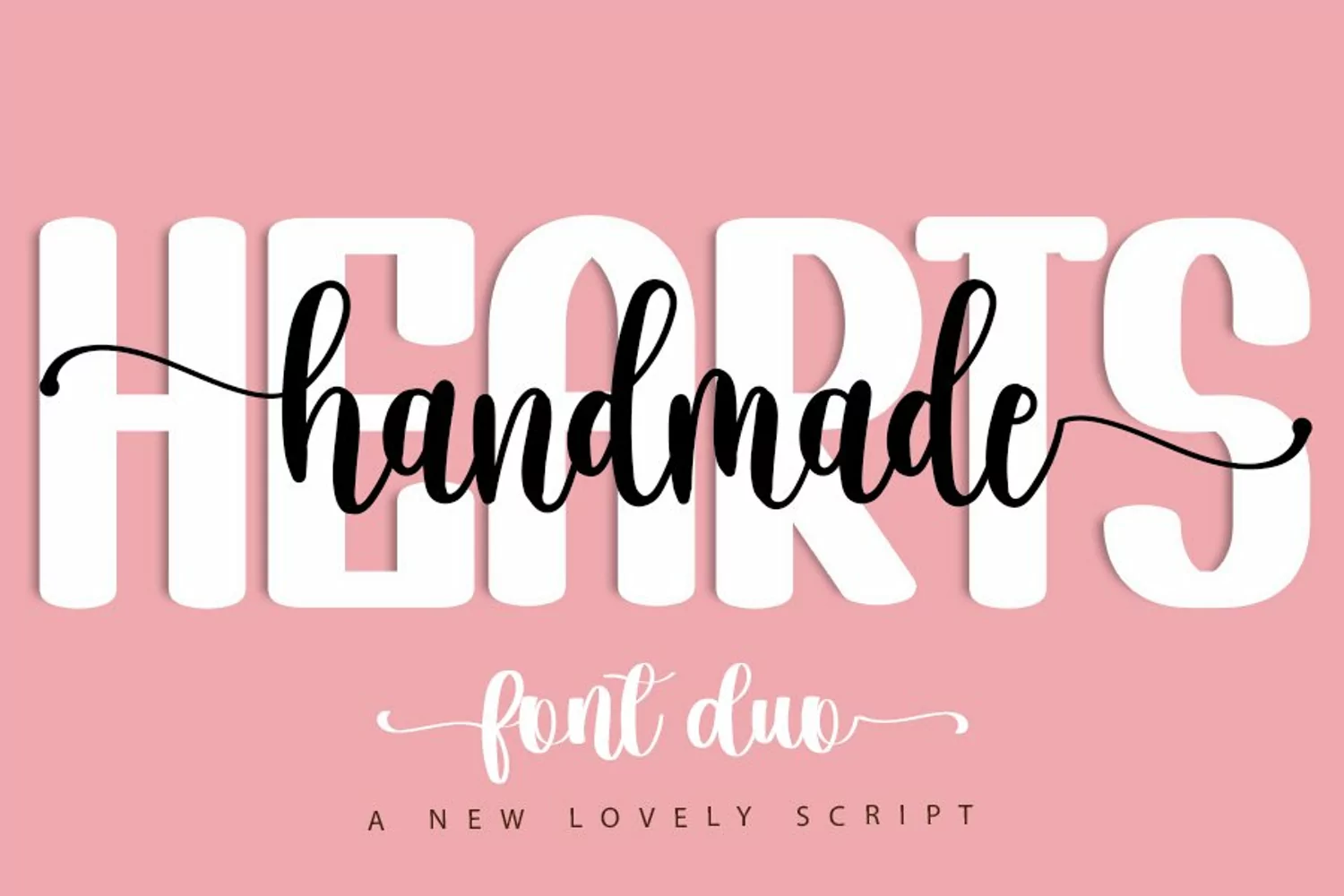
Hearts Handmade Font Duo
Hearts Handmade Sans
Hearts Handmade
Hearts Handmade Font Duo a great Script Calligraphy font. Can be used for various purposes such as logos, wedding invitations, headings, t-shirts, youtube banners, layers, banners, mockups and many more. This font is PUA encoded which means you can access all glyphs and swashes with ease!
• Uppercase and Lowercase
• Alternate and Glyphs.